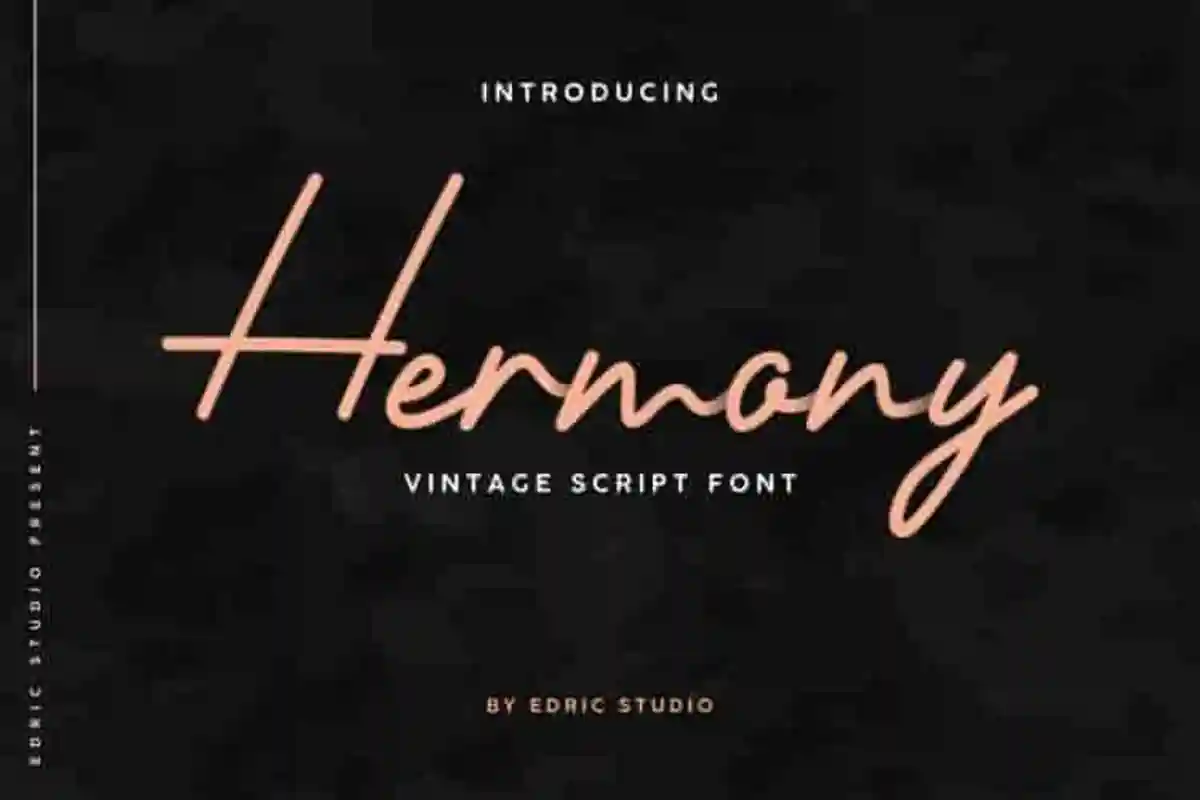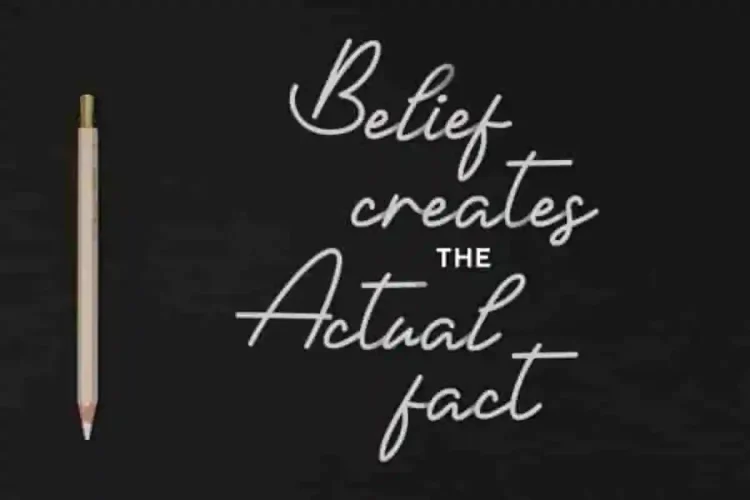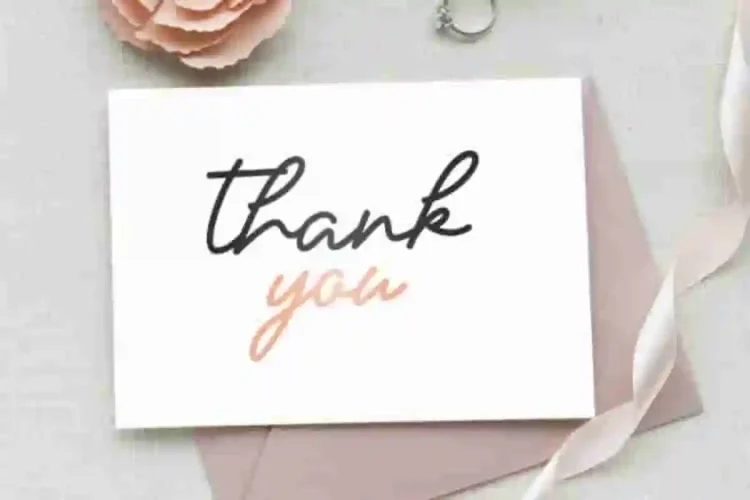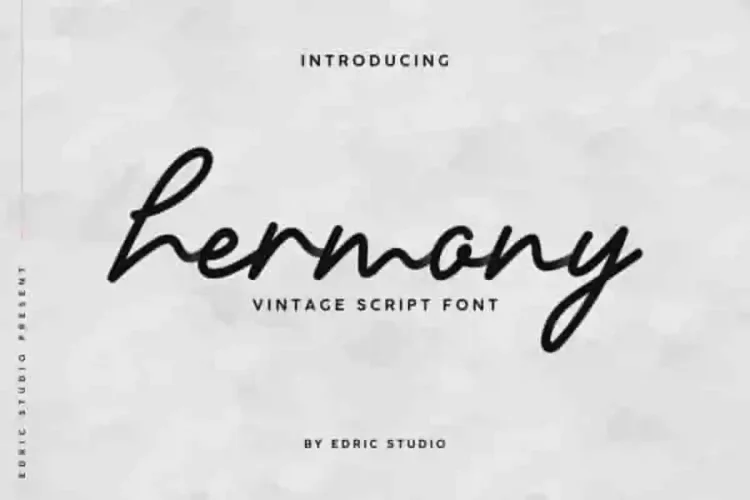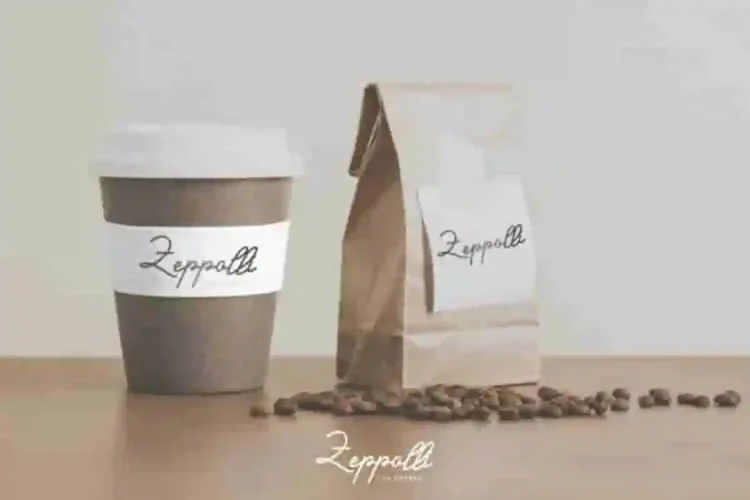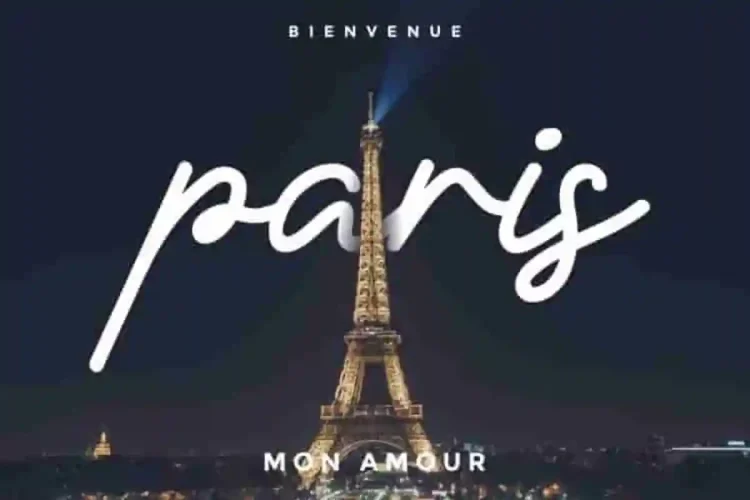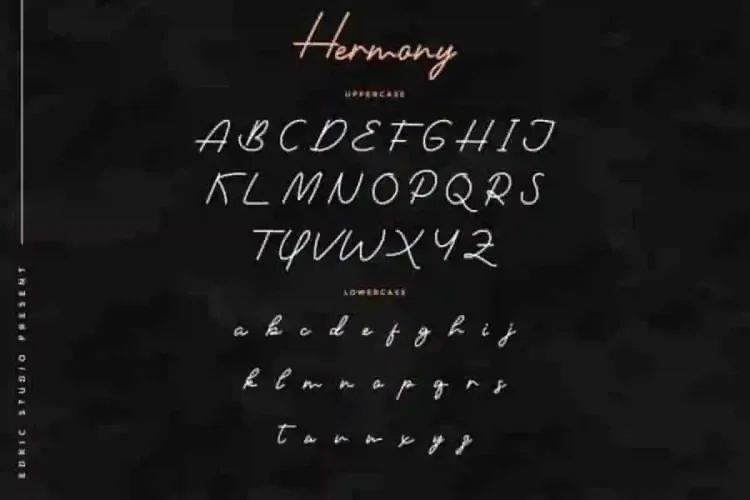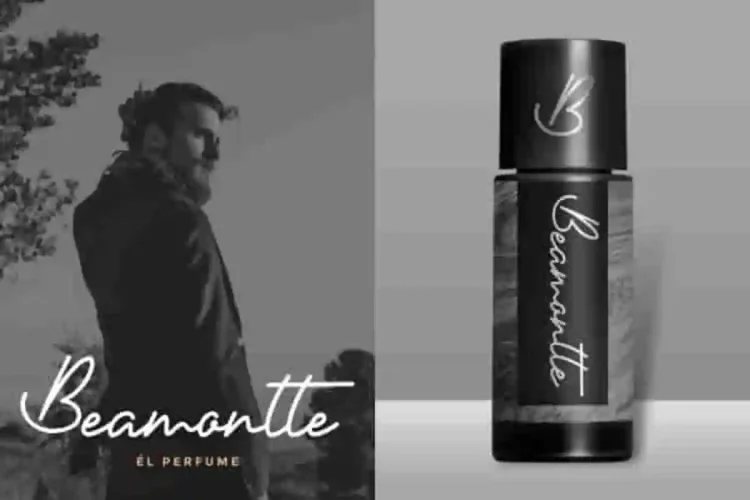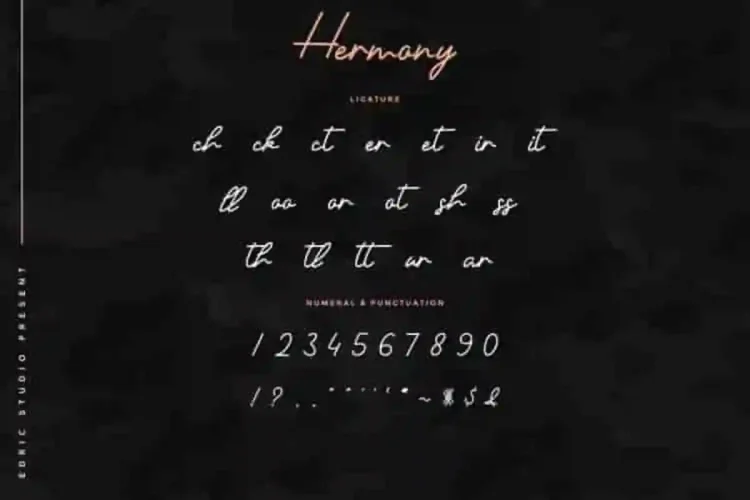
Hermony Signature Script Font
Hermony Signature Font is a simple signature font script with elegant handwriting style, handcrafted from our Studio here in Indonesia.
Hermony Font, a simple yet elegant signature script font. Hermony Signature Font will be great for any projects (with extended license) including : branding, logo, stationery, business card, signage, flyer, brochure etc. Almost all industries will be match for this typeface: wedding, events, real estate, architect, law firm, florist, gardening, makeup artist, travel, hotel, musician etc.